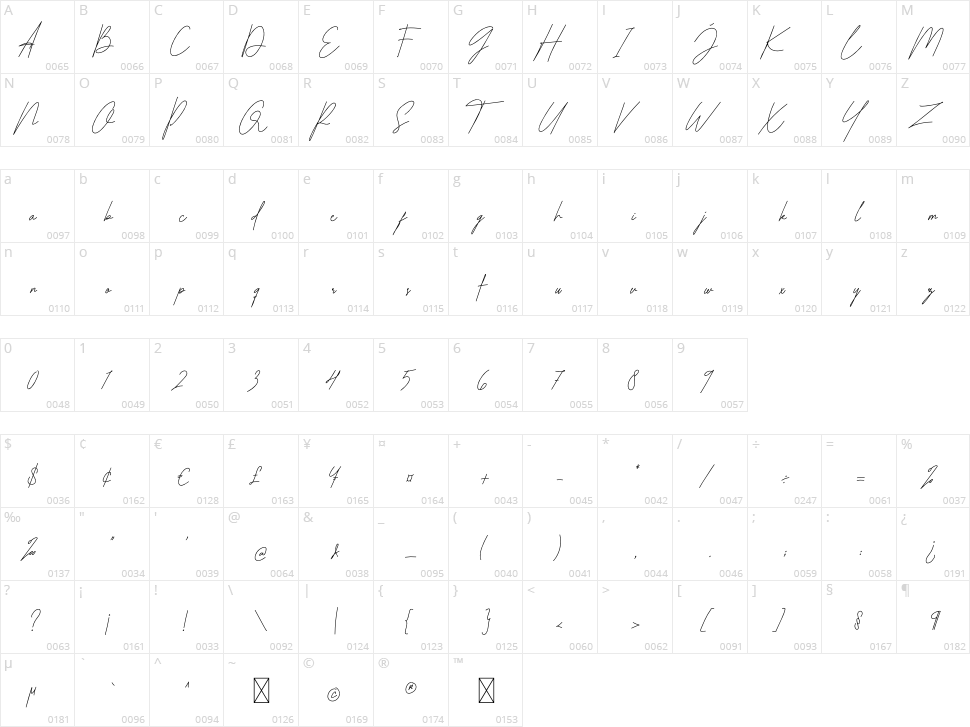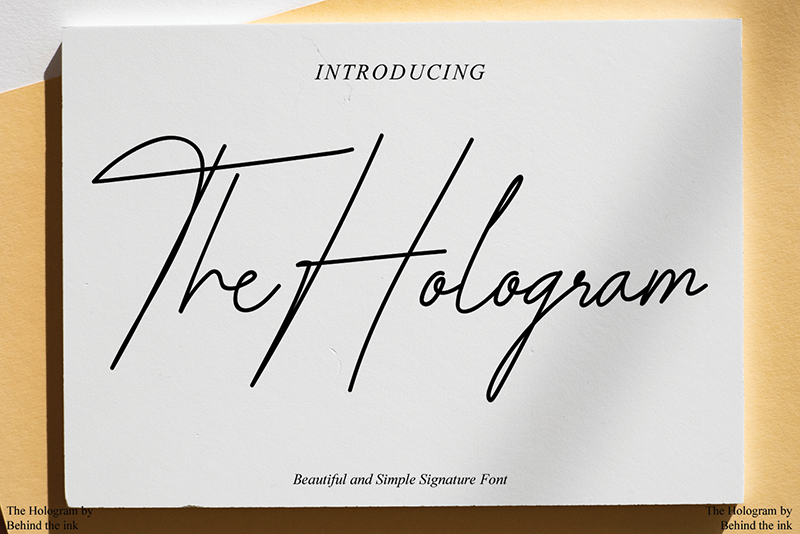
The Hologram
The Hologram is a thin lettered handwritten font, masterfully designed to become a true favorite. It maintains its classy calligraphic influences while feeling contemporary and fresh.